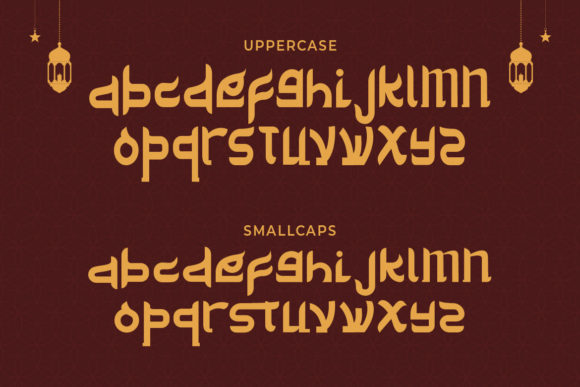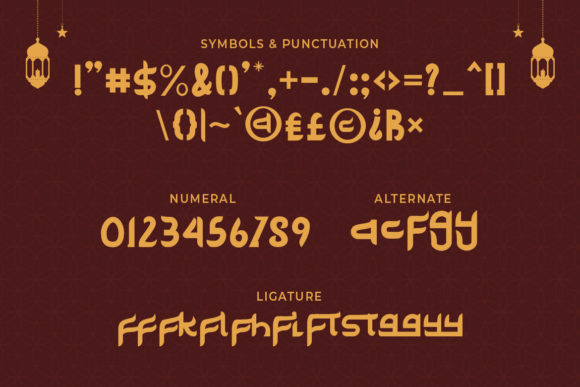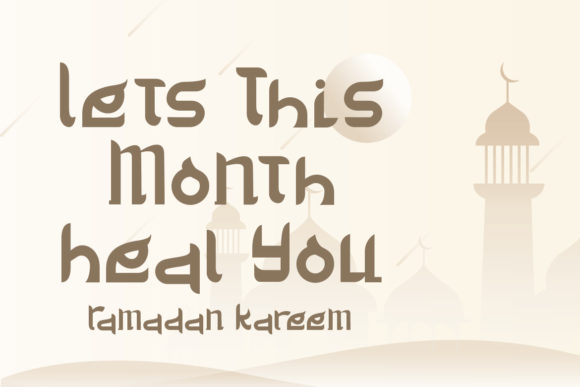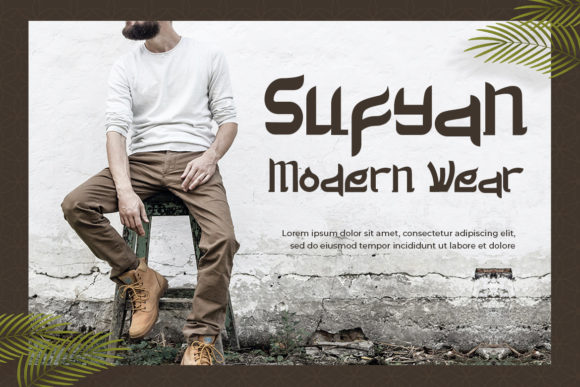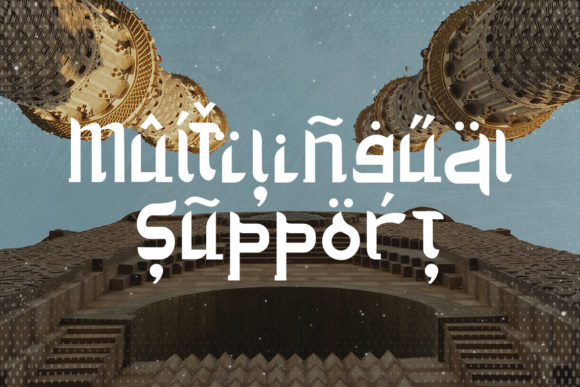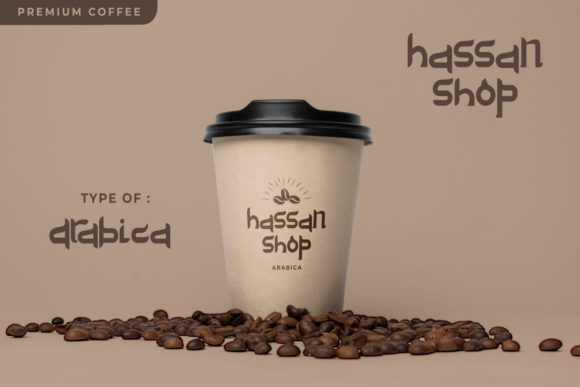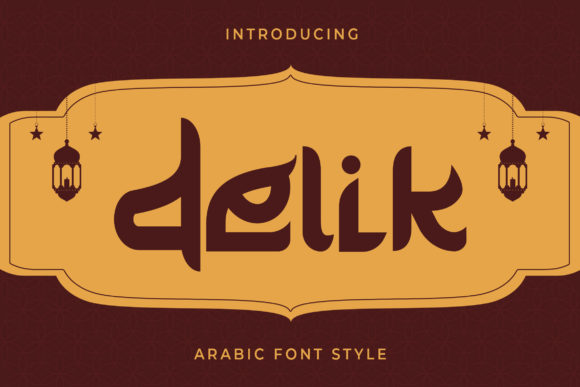
Introducing Delik Font: A Stunning Display Font Inspired by Arabic Style
In the world of typography, fonts play a crucial role in conveying the tone and personality of a brand or design. For designers and crafters looking for a unique and captivating font to elevate their projects, Delik Font is an excellent choice. This display font is inspired by the elegant and intricate Arabic style, making it perfect for a variety of applications, from branding logos to Islamic themes and Ramadan decorations.
What Makes Delik Font Special?
Delik Font is an interesting display font that boasts a distinctive and eye-catching design. Its Arabic-inspired style gives it a touch of cultural richness and sophistication, making it ideal for projects that require a sense of luxury and refinement. The font’s unique features include:
- Intricate lettering: Delik Font showcases intricate and detailed lettering, reminiscent of traditional Arabic calligraphy.
- Unique character set: The font features a distinctive character set that sets it apart from other display fonts.
- High legibility: Despite its ornate design, Delik Font remains highly legible, making it suitable for use in a variety of contexts.
Use Cases for Delik Font
Delik Font’s versatility makes it an excellent choice for a wide range of projects. Here are some use cases where this font truly shines:
- Branding logos: Delik Font’s unique design makes it perfect for creating eye-catching logos that stand out from the crowd.
- Islamic themes: The font’s Arabic inspiration makes it an excellent choice for Islamic-themed designs, such as mosque decorations, Islamic art, and more.
- Ramadan themes: Delik Font’s elegant design makes it suitable for Ramadan-themed designs, including greeting cards, posters, and social media graphics.
- Wedding and event designs: The font’s luxurious feel makes it perfect for wedding and event designs, such as invitations, programs, and decorations.
Why Choose Delik Font?
With so many fonts available, why choose Delik Font? Here are some compelling reasons:
- Unique design: Delik Font’s distinctive design sets it apart from other fonts, ensuring your projects stand out.
- High-quality: Delik Font is a high-quality font that is optimized for use in digital and print designs.
Tips for Using Delik Font
To get the most out of Delik Font, here are some tips to keep in mind:
- Use it sparingly: Delik Font’s ornate design makes it best suited for use in headings and titles. Use it sparingly to create visual interest.
- Pair it with a simple font: Pair Delik Font with a simple, clean font to create visual contrast and make your design more readable.
- Experiment with colors: Delik Font looks stunning in a variety of colors. Experiment with different colors to find the perfect combination for your design.
Delik Font is a stunning display font that is sure to elevate your designs. Its unique Arabic-inspired design makes it perfect for a variety of projects, from branding logos to Islamic themes and Ramadan decorations. With its high legibility, ease of use, and high-quality design, Delik Font is an excellent choice for designers and crafters looking to add a touch of elegance and sophistication to their work.